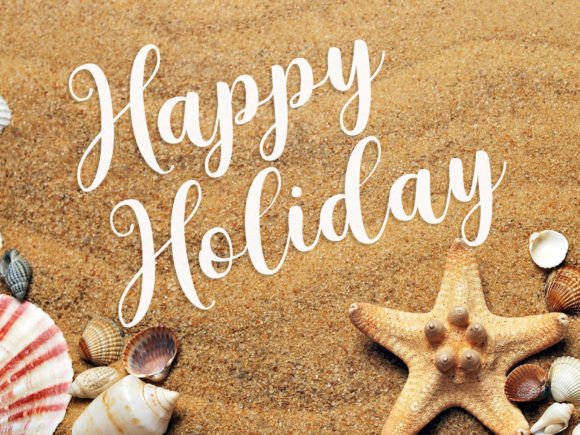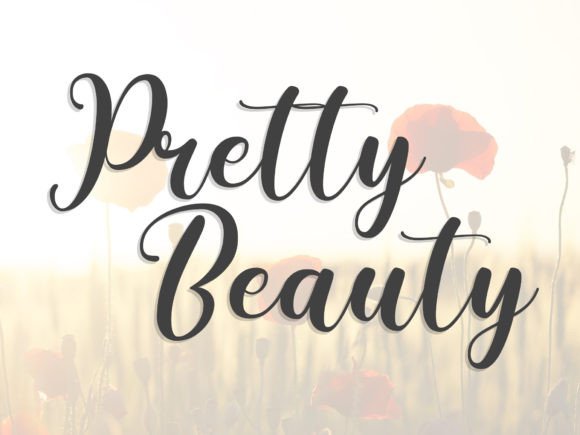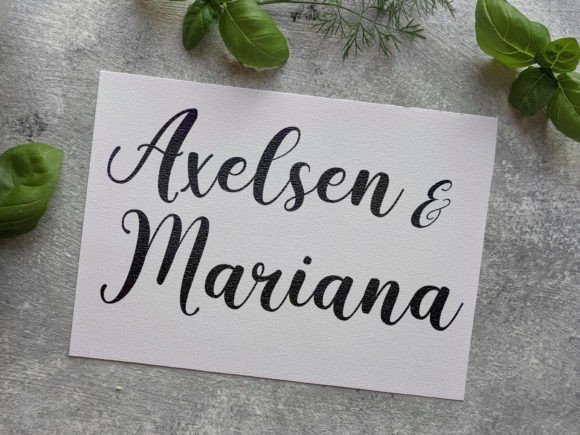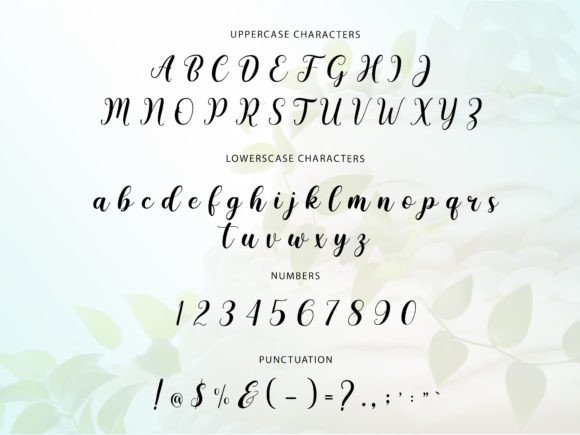
Introduction to Slammia Font
Imagine you’re sitting in a quiet, cozy café, sipping a cup of coffee, and surrounded by beautiful stationery. You’re designing a wedding invitation for a dear friend, and you stumble upon the perfect font – Slammia Font. Its elegant, handwritten script immediately captures your attention, and you can’t help but feel the romance and sophistication it embodies.
For designers, finding the right font can be a game-changer. A high-quality font like Slammia Font can elevate your creative project from ordinary to extraordinary. With its fluid, cursive strokes and delicate curves, it’s perfect for wedding invitations, save-the-date cards, and other bridal materials. Plus, it’s available as a free download, making it an excellent resource for designers looking to add a touch of elegance to their designs. Whether you’re working on a commercial project or a personal one, Slammia Font is sure to impress.
Key Features of Slammia Font
- Slammia Font is designed with a unique, bold aesthetic, making it ideal for use in logos, branding, and typography-based designs.
- Features a wide range of characters, including uppercase and lowercase letters, numbers, and punctuation marks.
- Includes a comprehensive character set, including accented characters and symbols, for enhanced design versatility.
Honest Review: Slammia Font
I recently stumbled upon the Slammia Font while searching for a high-quality design resource for a creative project. I was drawn to its edgy and modern aesthetic, making it perfect for a variety of applications. The font is available for free download, which was a major plus for me.
The Slammia Font comes with a transparent background, allowing for seamless integration with any design. The font’s clean lines and bold typography make it ideal for use in headings, titles, and other prominent design elements. I particularly liked the font’s versatility, as it can be used in both digital and print media. ✨
- Edgy and modern aesthetic that’s sure to grab attention
While the Slammia Font is an excellent addition to any design library, I did notice a few limitations. The font’s bold style can be overpowering at times, making it difficult to read in smaller sizes. Additionally, the font’s availability is limited to certain file formats, which may not be compatible with all design software. ⚠️
Overall, I’m impressed with the Slammia Font and its potential to elevate any design project. While it may have a few limitations, its high-quality design and versatility make it a valuable resource for designers. I would definitely recommend the Slammia Font to anyone looking for a creative and modern font.
Slammia Font
Slammia Font is a high-quality design resource perfect for creative projects. With a transparent background, it’s easy to use and customize to fit your needs.
Tips for Getting the Most Out of Slammia Font
Experiment with different font sizes and styles to create unique designs. Combine Slammia Font with other design elements to create visually appealing graphics.
Use Slammia Font for logos, social media posts, graphics, and presentations. It’s perfect for designers, marketers, and anyone looking for a high-quality design resource.